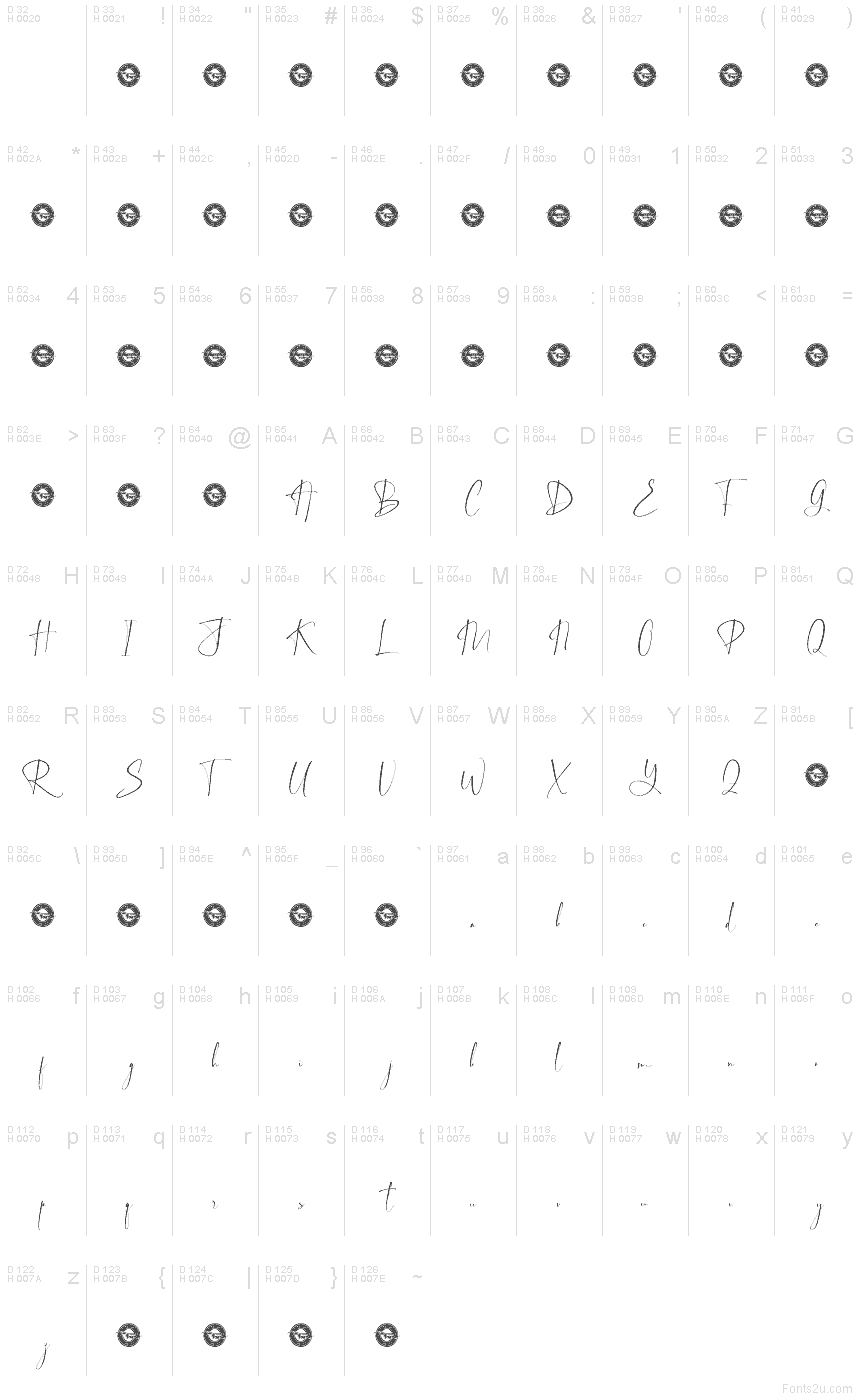
Boston Night Demo
Boston Night font by Calligraphy Fonts is a free handwritten script typeface with the feel of a fast, confident signature. Long, sweeping strokes glide into hairline thins, giving each word a loose, inky elegance—like a name scrawled on a foggy café window. The letters breathe with generous spacing and delicate curves, so even at larger sizes it keeps that airy, romantic tension between polish and spontaneity.
Using Boston Night, your layouts instantly pick up a dreamy, upscale mood that shines on wedding invitations, save-the-dates, boutique logos, signature-style branding, feminine packaging, greeting cards, and Instagram quotes. This free font loves white space and works beautifully when paired with a clean geometric sans-serif for body text—just keep Boston Night big and spacious, and let it do the whispering headline work.